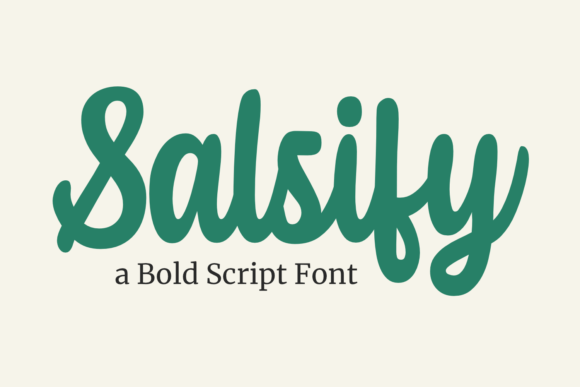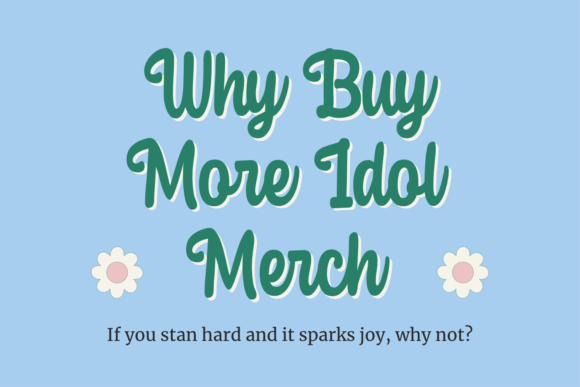
About Salsify
Salsify delivers a charming and bold font experience that will turn any design idea into a true standout! Get inspired by its unique approach to design.